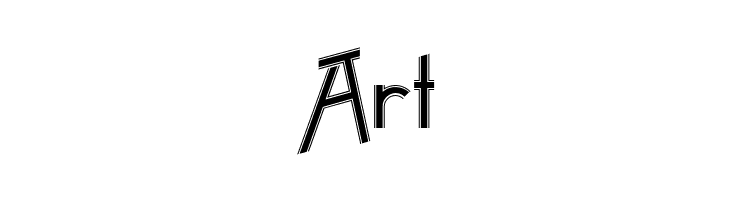
A bold, stencil-like font with a modern, industrial feel.
A bold, three-dimensional block font with a modern, impactful style.
A tall, narrow font with a modern, geometric style.
A modern, geometric sans-serif font with a clean and balanced appearance.
A modern, geometric font with clean lines and balanced spacing.
A bold, playful handwritten font with smooth, rounded strokes.
A playful, handwritten font with a bold and friendly style.
A bold, playful font with rounded, slanted letterforms and a handwritten feel.
A playful, handwritten script font with an italicized, dynamic style.
A casual, handwritten font with a friendly and approachable style.
A whimsical, script-like font with a hand-drawn, artistic style.
A bold, geometric font with a modern and strong aesthetic.
A bold, italicized typeface with a modern, speedy aesthetic.
A distressed, typewriter-style font with a vintage, rugged appearance.
A dynamic, angular font with a sense of speed and movement.
A bold, brush-style font with dynamic and expressive strokes.
A bold, graffiti-inspired font with a dynamic, hand-drawn style.
A bold, decorative font with intricate geometric patterns and a futuristic style.
A modern, minimalist font with clean lines and geometric shapes.
An elegant script font with intricate loops and flowing connections.